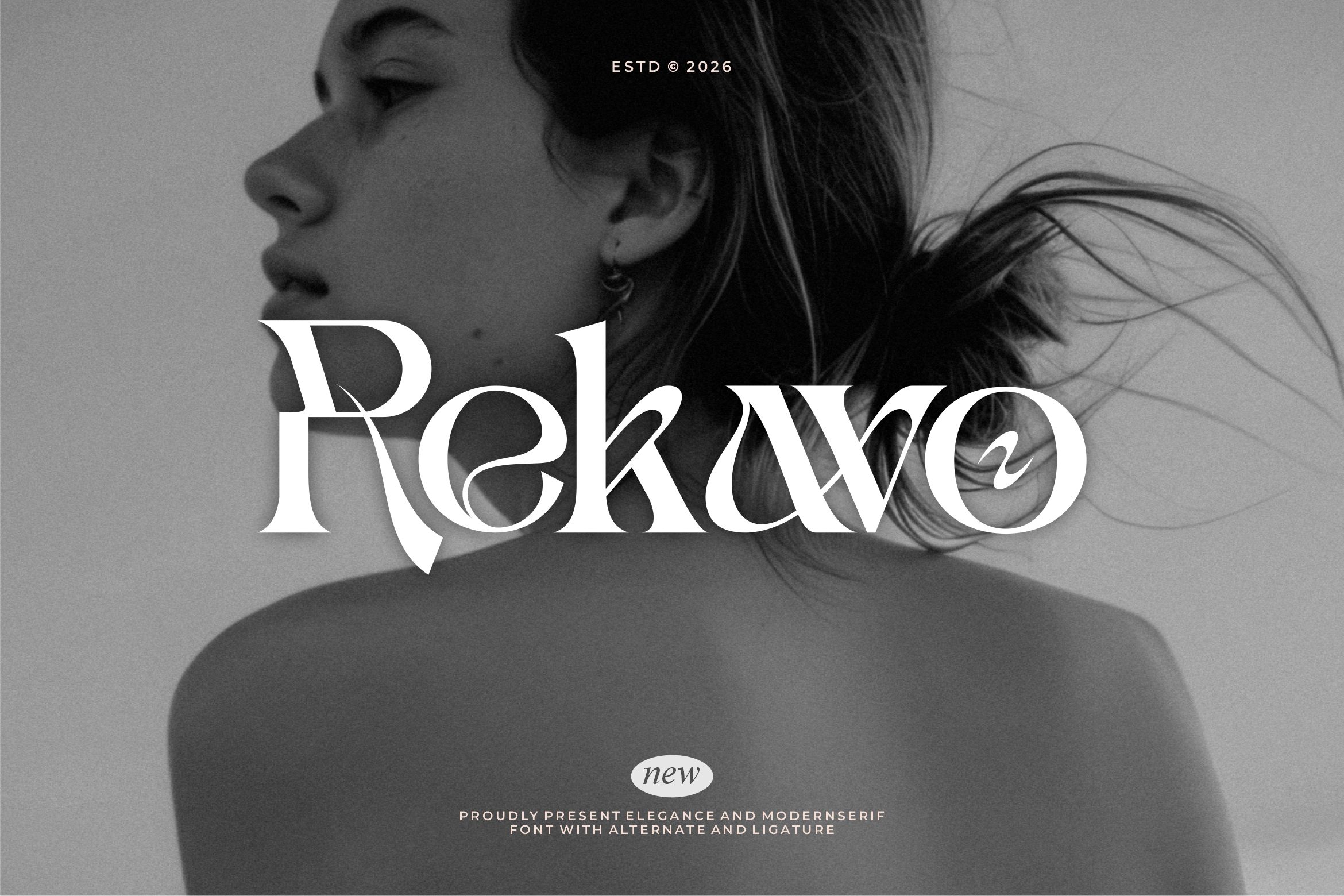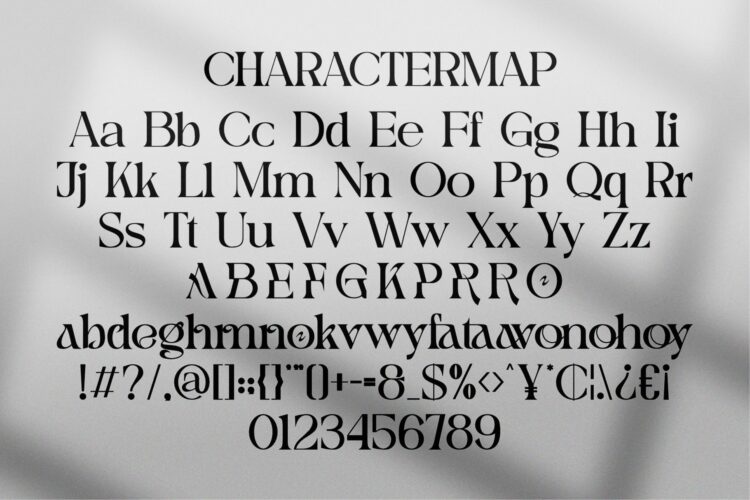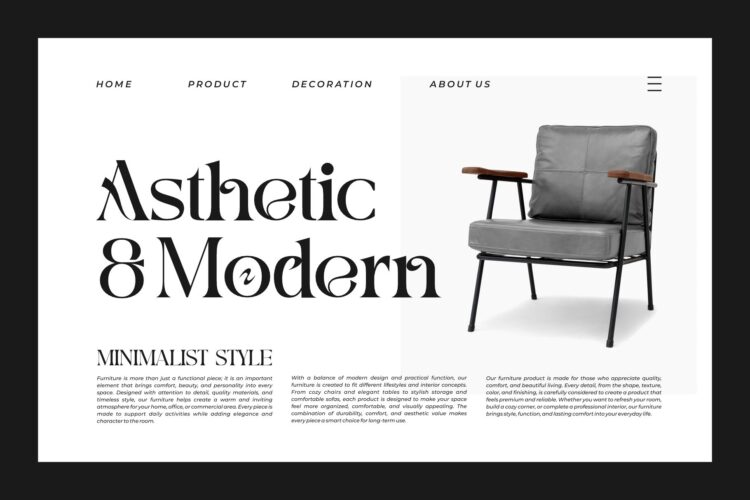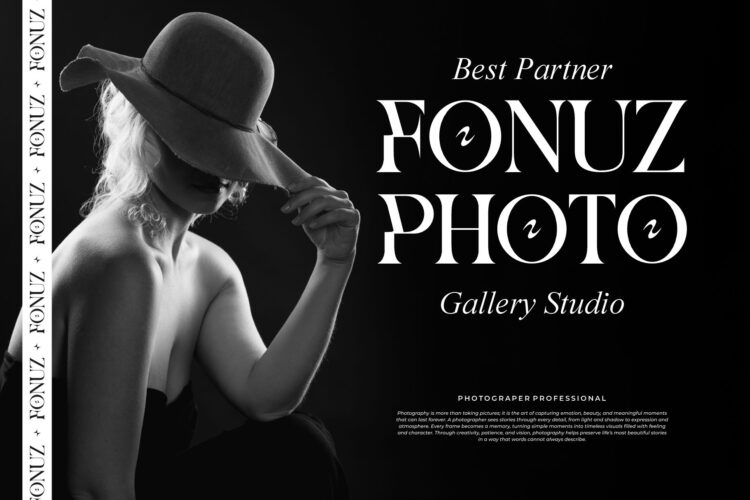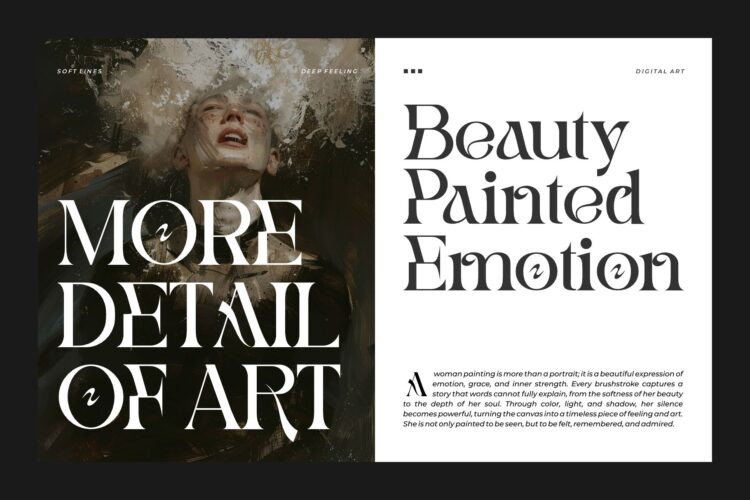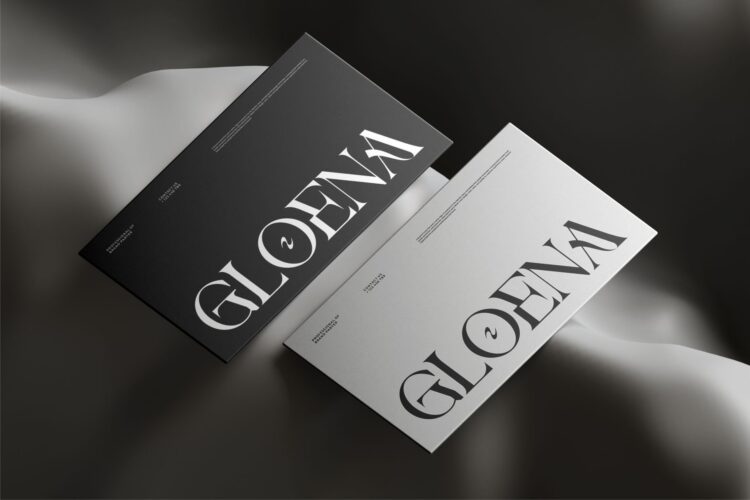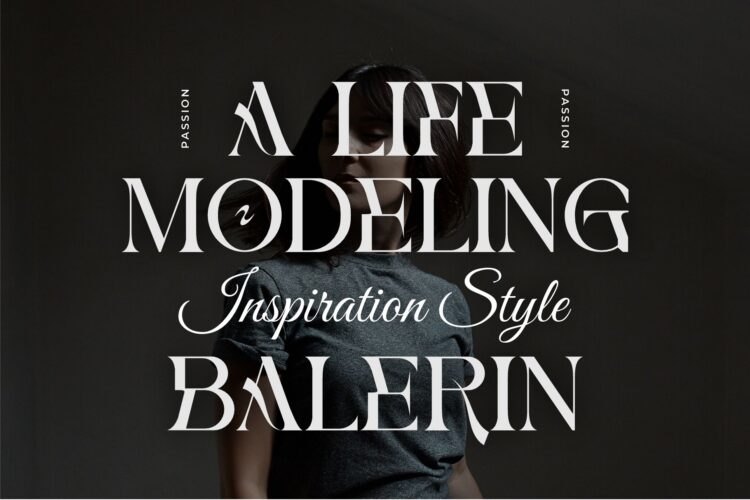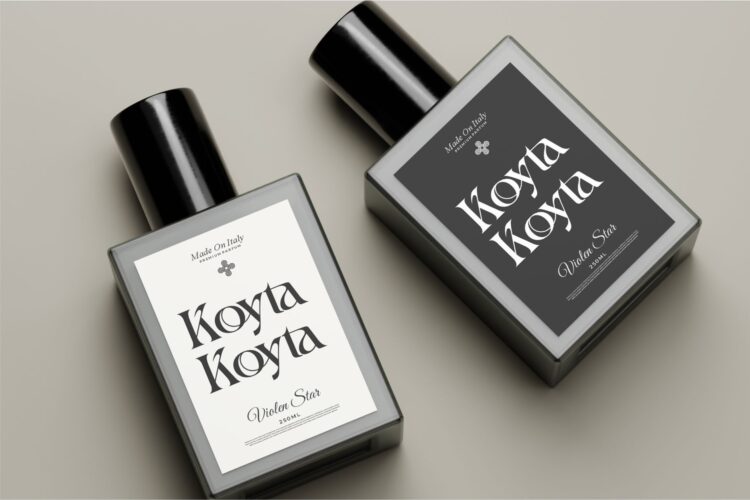
Rekavo is a highly versatile and elegant serif font that exudes a timeless charm. With its beautifully crafted curves and exquisite details, Rekavo is the perfect choice for a wide range of design projects. Whether you need a font for display purposes, web design, or social media, Rekavo will effortlessly elevate your creations to the next level. Its fancy curves add a touch of sophistication and uniqueness, making it a standout choice among other fonts. Embrace the versatility and elegance of Rekavo and let your creativity soar!
Rekavo || Elegant Serif Font